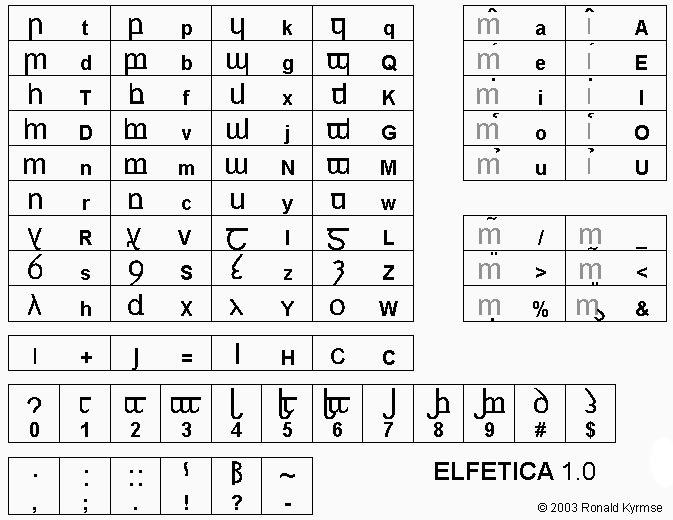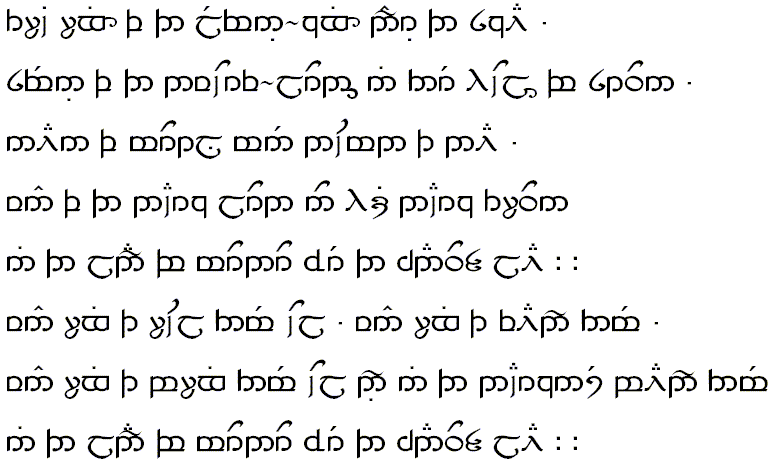
Tengwar-Inspired Fonts These fonts were inspired by the elvish tengwar. Tencele Latinwa ("Latin Alphabet" in Quenya) assigns to each letter of the keyboard a tengwa-lookalike. It is based on Måns Björkman's Tengwar Parmaite, in my opinion the most beautiful tengwa font to date, which may be found here. The font name below uses the font itself. Elfetica is based on Max Miedinger's Helvetica, one of the most famous sans-serif fonts, closely imitated by Arial. It is meant for writing in "modern-looking" tengwar, according to the table below. Tengwar Hereno was first designed by Paulo A. Otto in 1994 with the name of Tengwar 04. I redistributed and completed the font according to the standard keymapping [Tengwar Help File from here]. The font is called like this because the proper name Otto is interpreted as a variant of Odo, from Old German "prosperity, riches", in Quenya heren. The sample is the Ring-Verse in English. Please note that these fonts are still experimental! |
Fontes Inspiradas nos Tengwar Estas fontes foram inspiradas nos tengwar élficos. Tencele Latinwa ("Alfabeto Latino" em Quenya) atribui a cada letra do teclado um caracter semelhante a um tengwa. Baseia-se na Tengwar Parmaite de Måns Björkman, em minha opinião a mais bela fonte de tengwar até agora, que pode ser encontrada aqui. O nome da fonte abaixo usa a própria fonte. Elfetica baseia-se na Helvetica de Max Miedinger, uma das fontes sem serifas mais famosas, imitada de perto pela Arial. Destina-se a escrever em tengwar "de aspecto moderno", de acordo com a tabela abaixo. Tengwar Hereno foi primeiro desenhada em 1994 por Paulo A. Otto, com o nome Tengwar 04. Redistribuí e completei a fonte de acordo com o mapa de teclas padrão [Tengwar Help File daqui]. A fonte chama-se assim porque o nome próprio Otto foi interpretado como variante de Odo, do antigo alemão "prosperidade, riqueza", em Quenya heren. A amostra é o Poema do Anel em inglês. Por favor considere que estas fontes ainda são experimentais! |